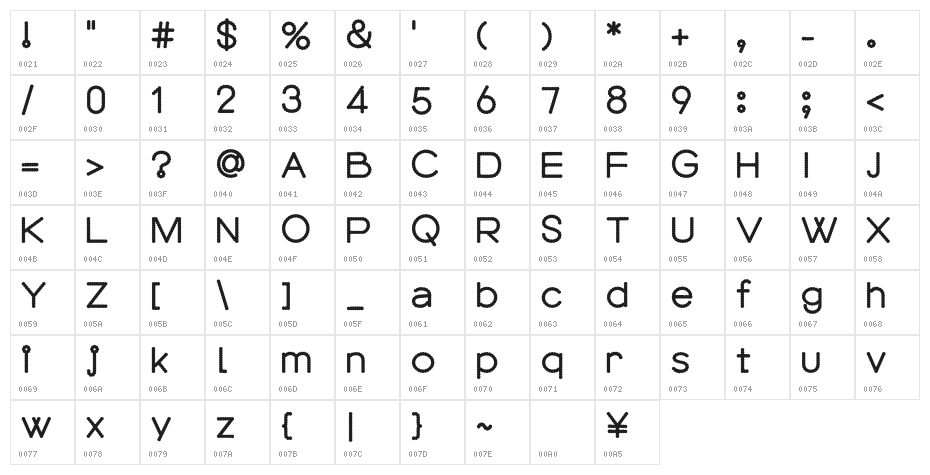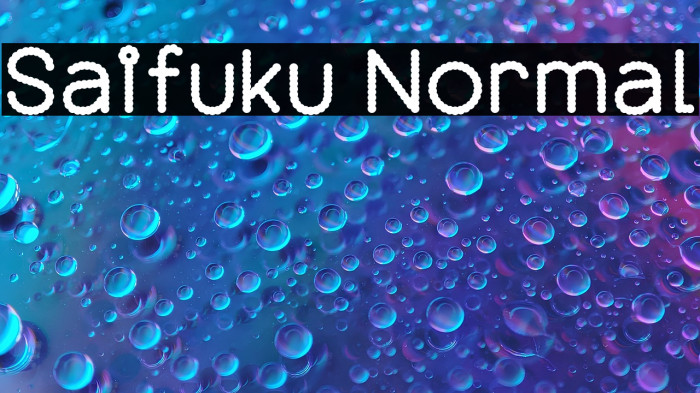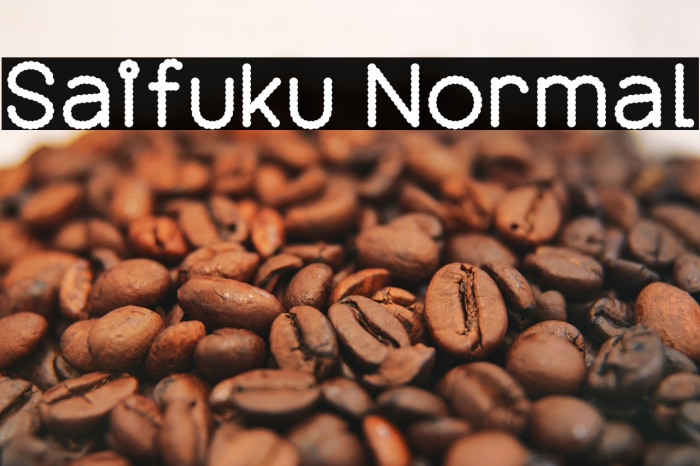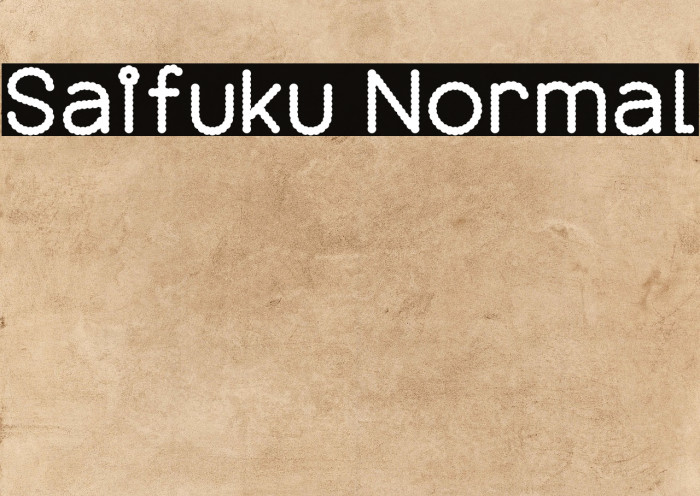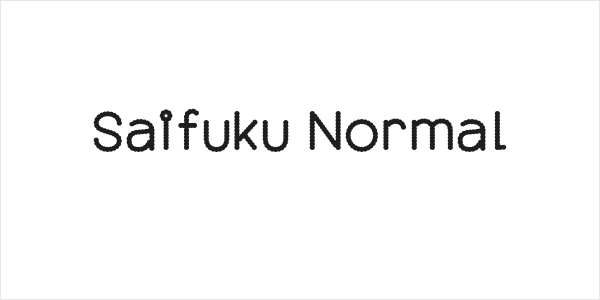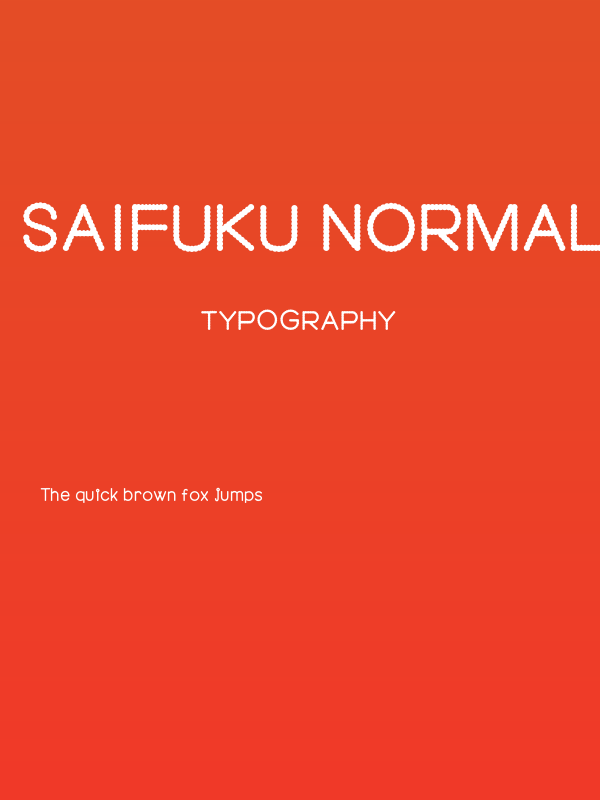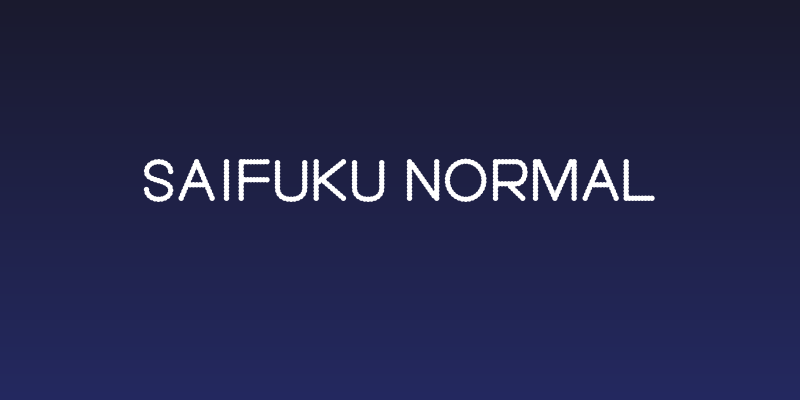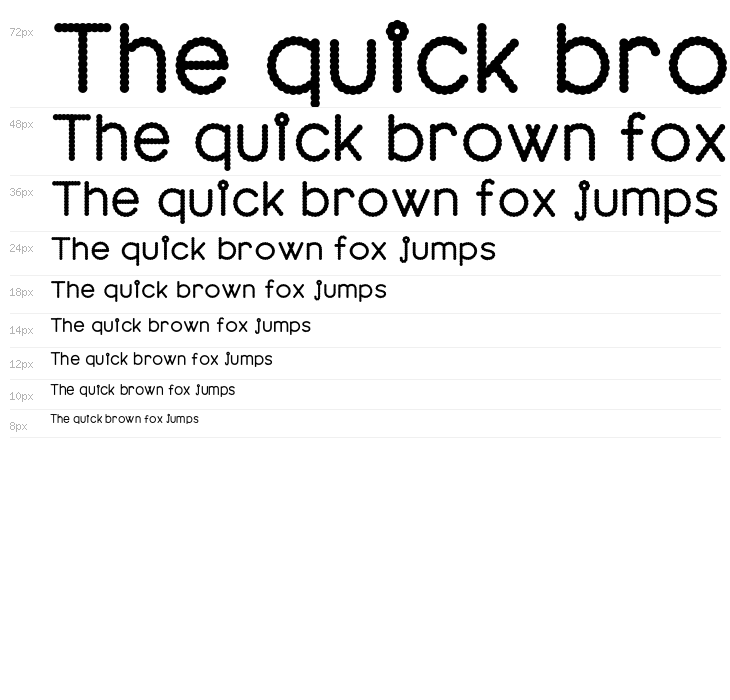
Saifuku Normal Font
Saifuku Normal Description
This font features a unique dotted pattern that forms each character, creating a playful and distinctive appearance. The letters are constructed with a consistent circular motif, giving them a cohesive and uniform look. The uppercase and lowercase letters maintain a similar width, contributing to a balanced and harmonious design. Numbers and special characters are also designed with the same dotted style, ensuring consistency across all glyphs. This font's whimsical and decorative nature makes it stand out, while still maintaining legibility.